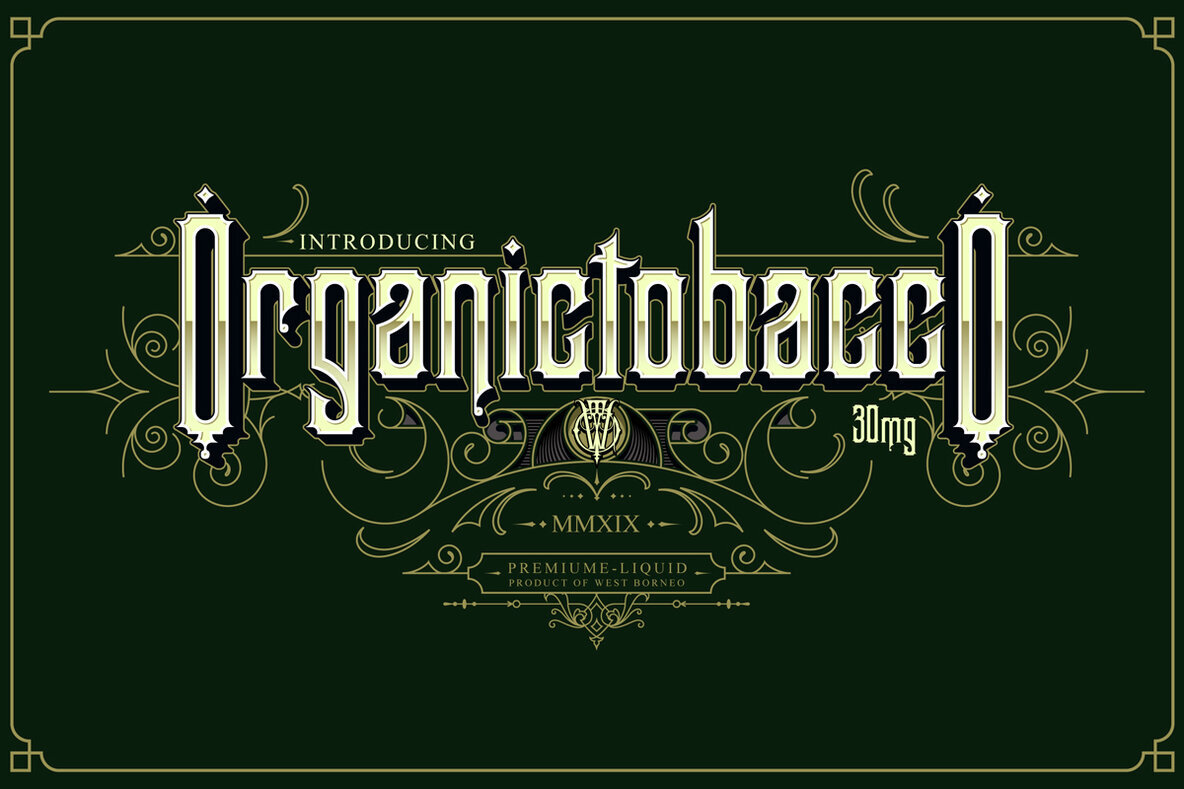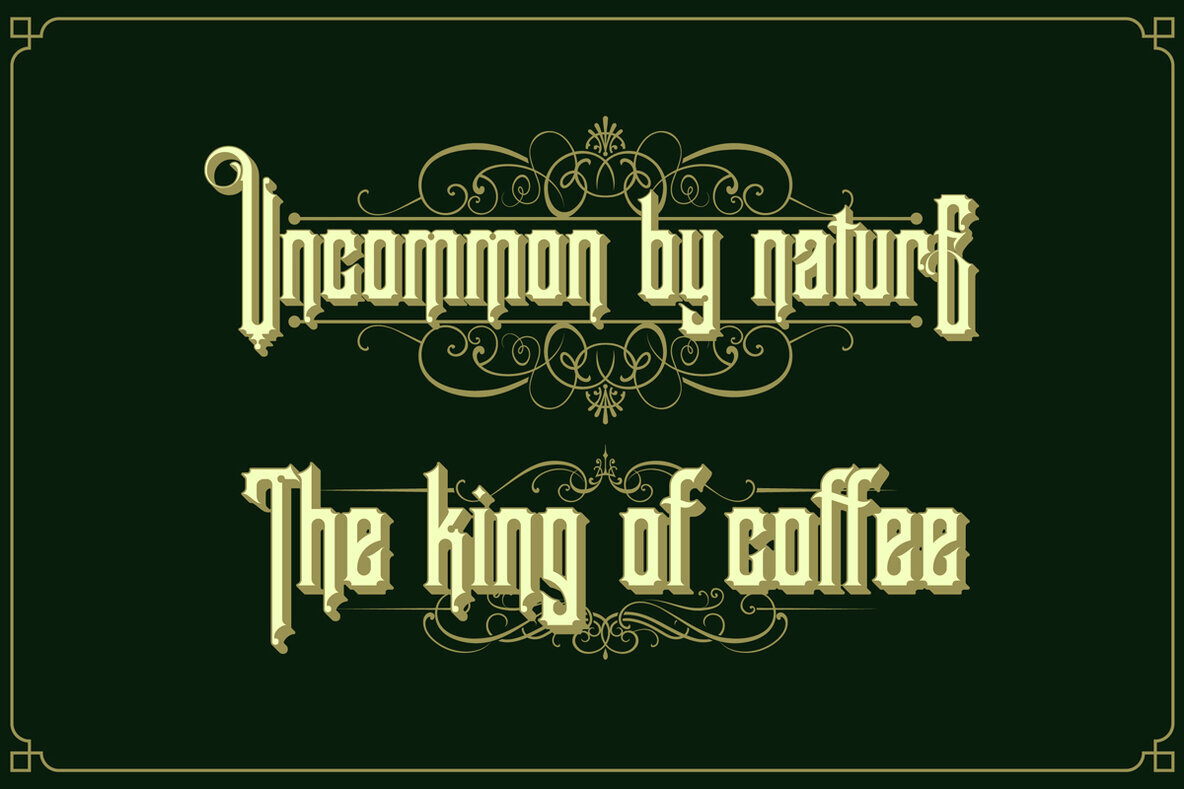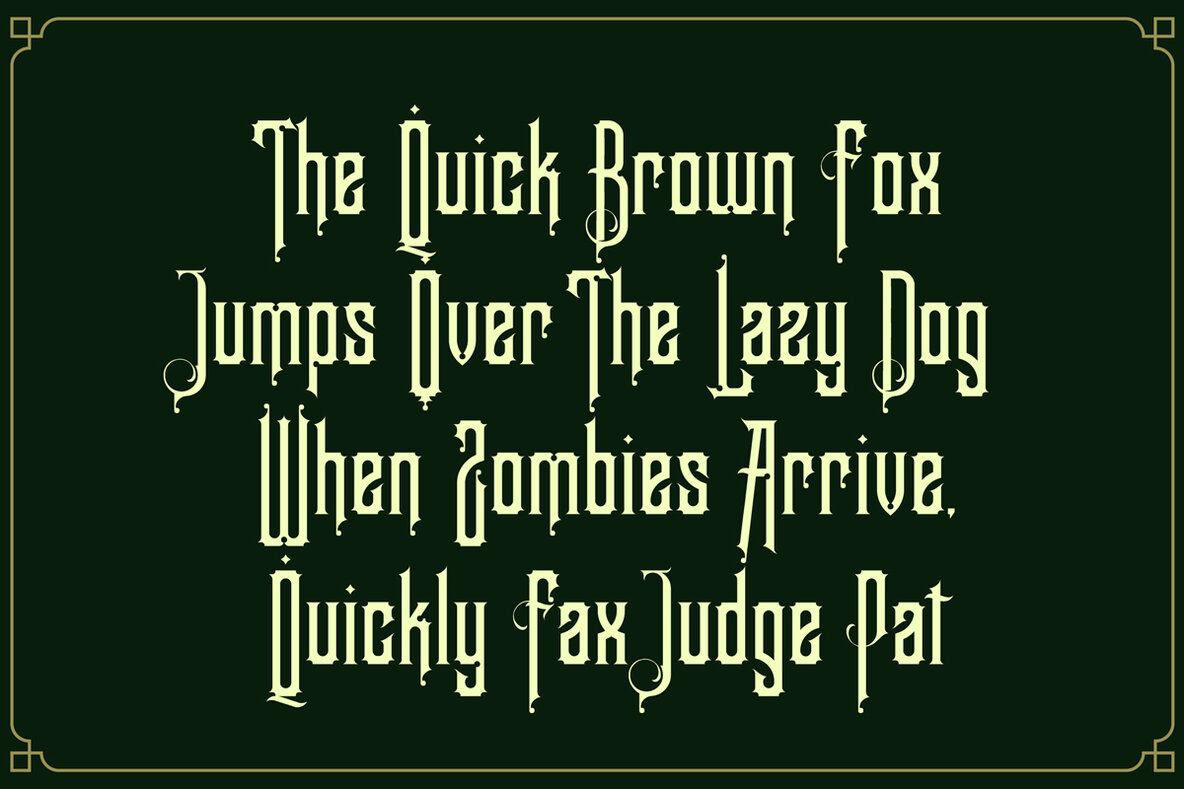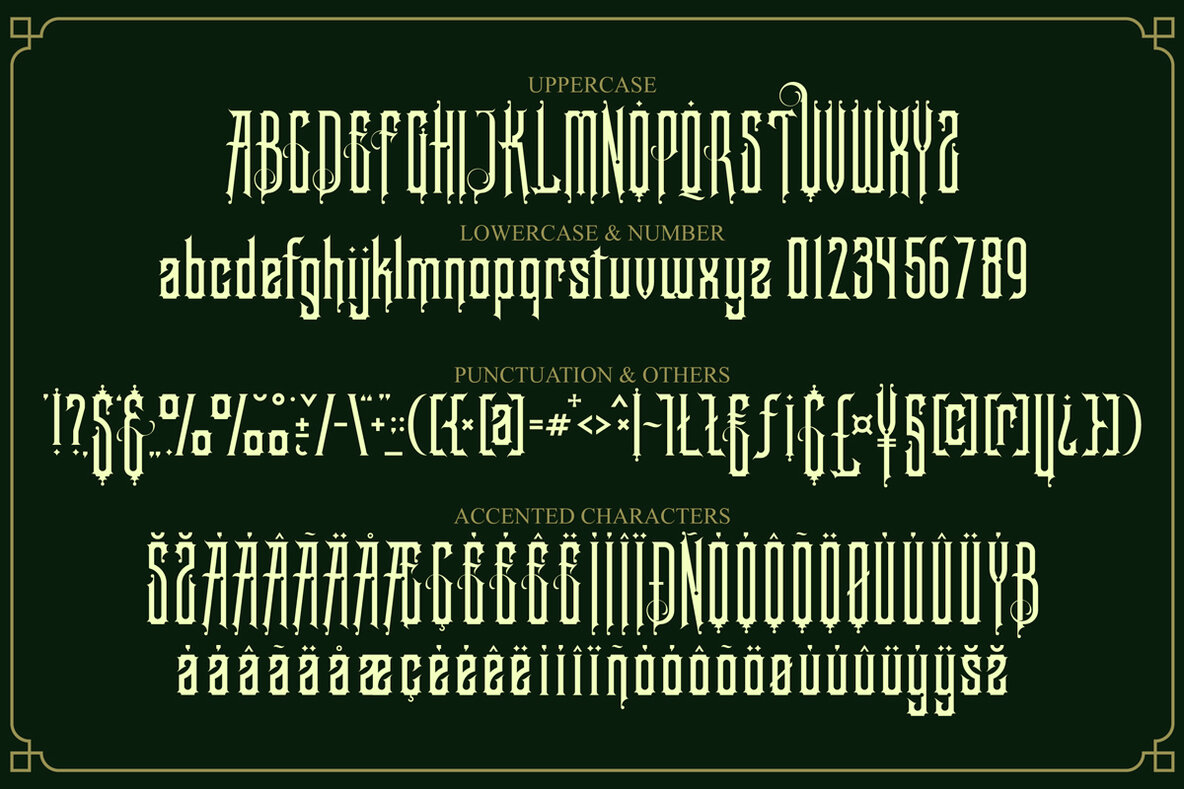
Blackborneo Font
Blackborneo Regular
BlackBorneo is a unique display font designed to enhance a wide array of creative projects. Its bold style is perfect for making a statement across various applications. This typeface excels in: If you need assistance with this font, please feel free to contact for support. Thank you.BlackBorneo: A Distinctive Display Typeface
Deni Dessastra,is the name behind Doeasembilanpro a.k.a 29pro-studio & now began changed to "the-Sastra", is a tough graphic designer from Indonesia. Now he's a base owner of The-Sastra studio (in Singkawang, west borneo) that the studio is having one person only, him